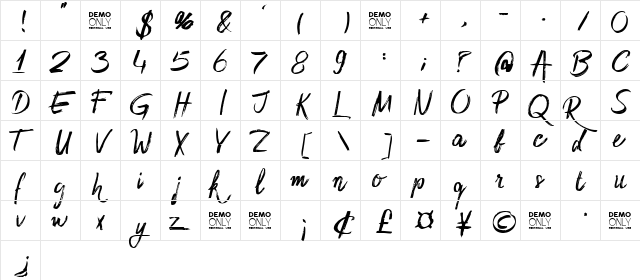
Sidney Demo Rough
Design Context for Sidney Demo Typeface
Sidney Demo embraces imperfection — its rough, textured character adds raw authenticity to designs that want to feel lived-in and unconventional.
Suited to punk-influenced zines, underground music branding, streetwear, and raw, anti-corporate design.
Pro Tip: Pair Sidney Demo with intentionally raw or lo-fi design elements. Fighting against it with overly polished surroundings will undermine its personality.